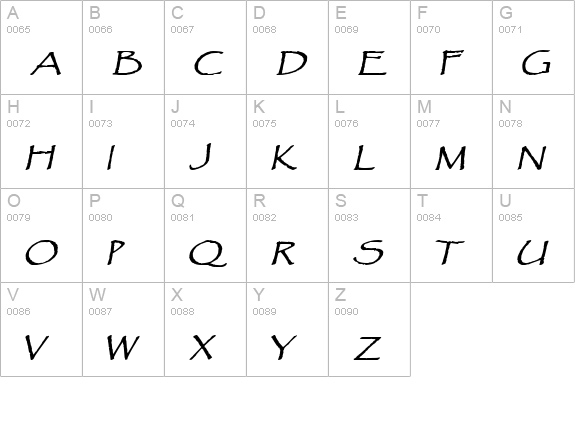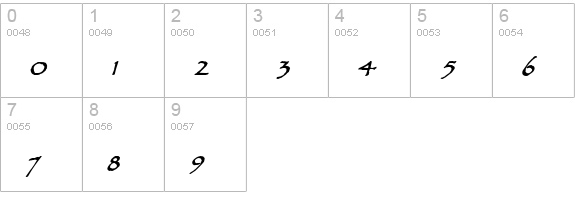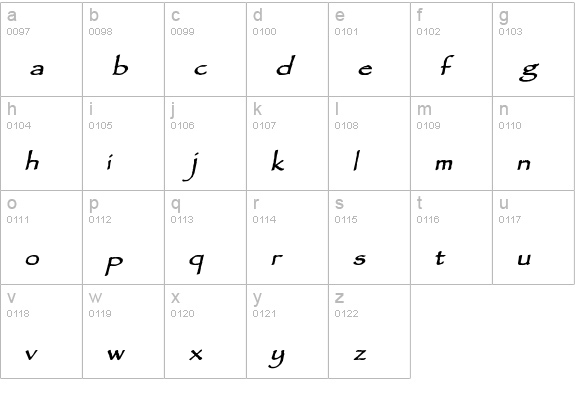
Chalk-Extended Bold Italic Font Details
Chalk-Extended Bold Italic is a strong, high-contrast, extended-width, italic variant in the Chalk typeface family \xE2\x80\x94 well suited to headlines, attention-grabbing titles, and strong calls-to-action.
Chalk-Extended Bold Italic is a stylish and modern font that exudes confidence and creativity. Its bold and italic design adds a touch of sophistication to any project, making it perfect for headlines, titles, and other eye-catching text. The extended characters provide a unique look that sets this font apart from others. What makes Chalk-Extended Bold Italic even more appealing is that it is available for free download at FontsMarket.com. This means you can easily access this versatile font and use it in your designs without any cost. Whether you're working on a branding project, poster design, or website layout, Chalk-Extended Bold Italic is sure to make a statement and elevate your work to the next level. Download it today and unleash your creativity!